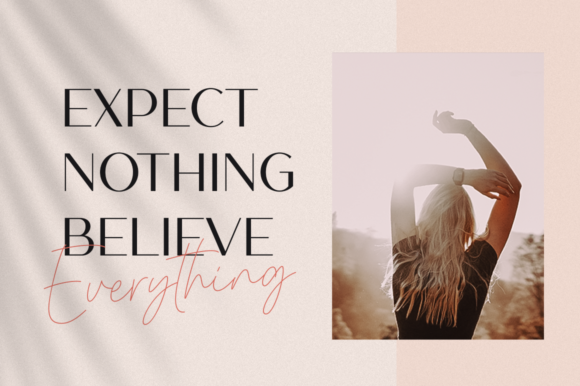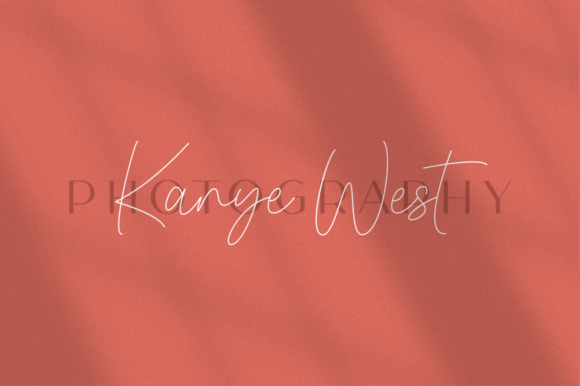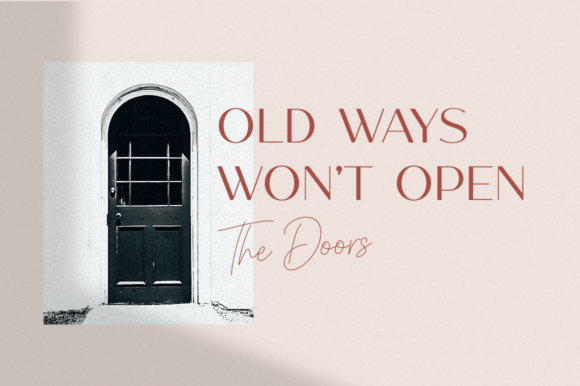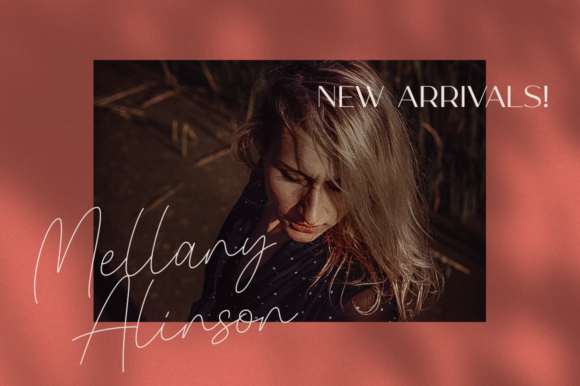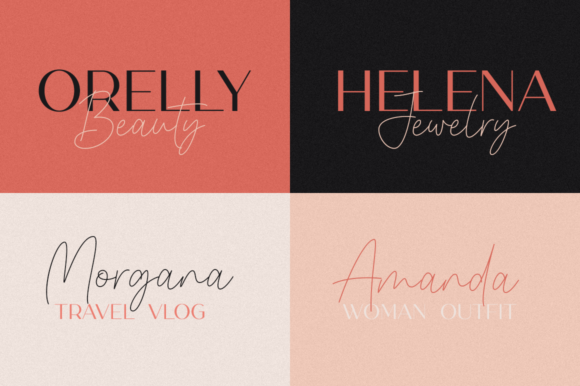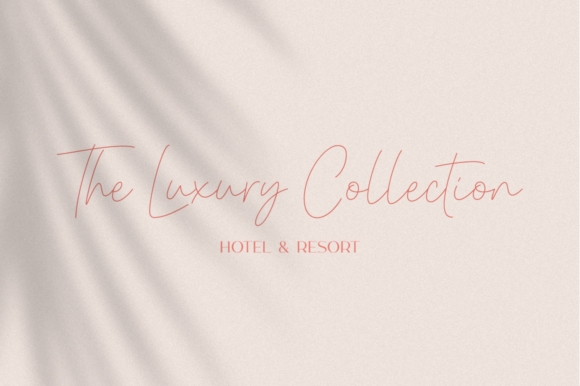
Introduction to Melody Southern Duo Font Font
Fonts play a crucial role in design, and the Melody Southern Duo Font font is a typeface that brings both character and versatility to any project. Whether you’re working on a branding project, a website, or a print design, the Melody Southern Duo Font font offers a unique style that can elevate your work.
Melody Southern is a luxury font duo with a combination of elegant all caps sans serif font and an elegant script font that look divine when paired together.
Key Features of Melody Southern Duo Font Font
Why Choose Melody Southern Duo Font Font?
The Melody Southern Duo Font font is more than just a typeface – it’s a design tool that helps you communicate your message with style and clarity. Its unique character set and versatile design make it suitable for a wide range of applications, from elegant invitations to bold headlines.
With its carefully crafted letterforms and balanced proportions, the Melody Southern Duo Font font ensures readability and visual appeal across all mediums.
What makes Melody Southern Duo Font font special?
The Melody Southern Duo Font font stands out with its unique design, exceptional readability, and versatility across various design applications.